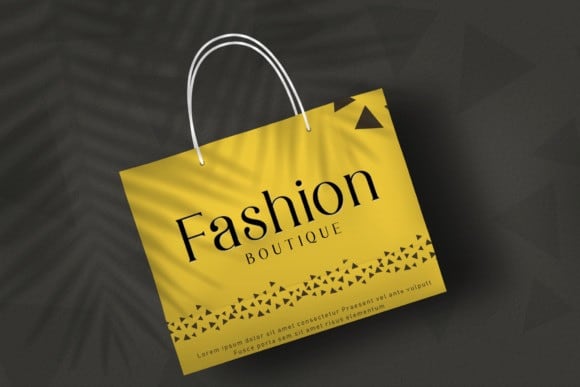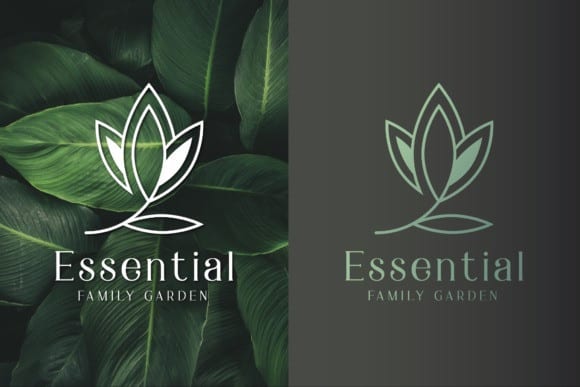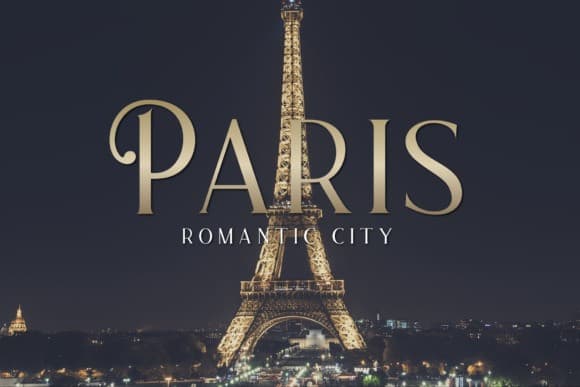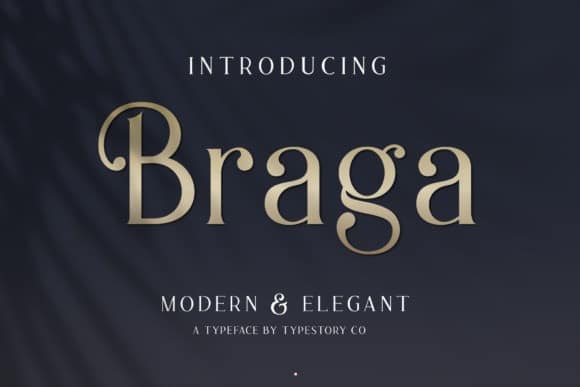
Braga Serif Font
Braga Serif Font is fun but also serious. Playful but elegant. Personal yet also industrial. That’s the power of a serif. Braga is a typeface from the designer Typestory. It’s a simply elegant and modern serif font that will add a fashionable feel to any design project. Get inspired by its unique charm!
Perfect for magazine headlines, signs, posters, slides, promotions, product design, branding, logos, and so much more.